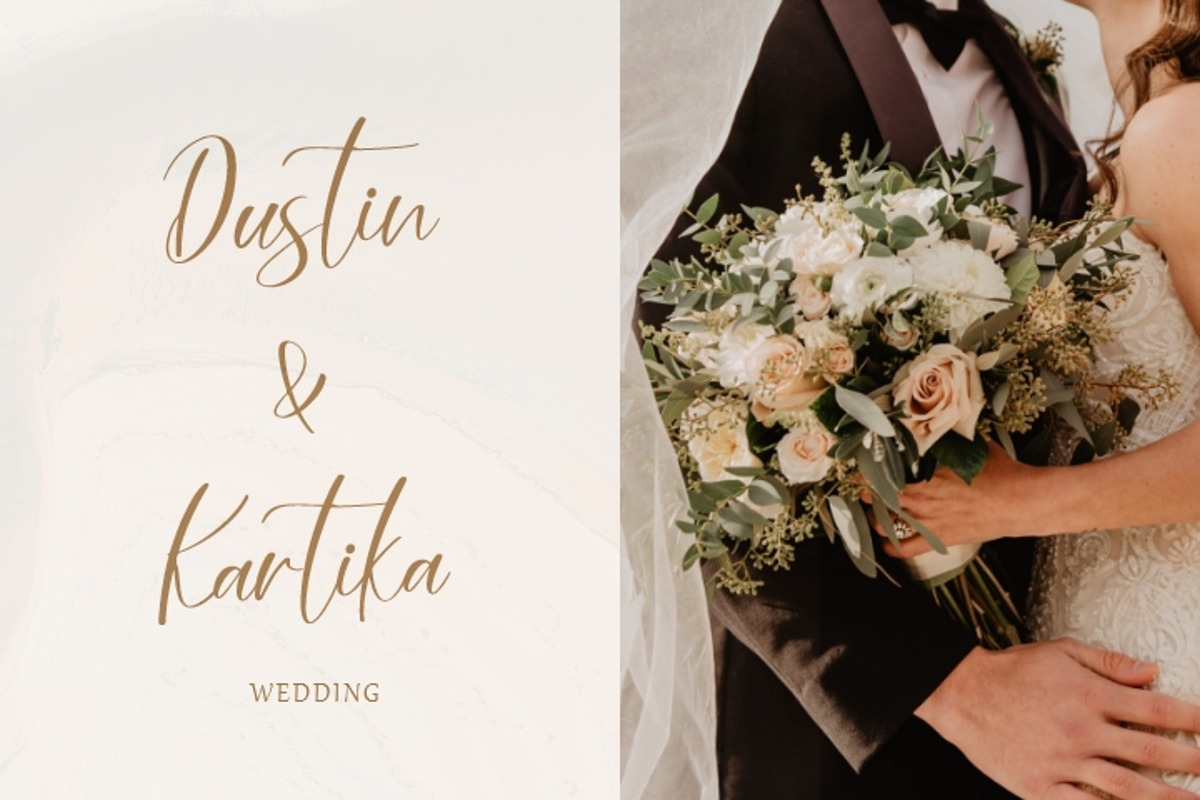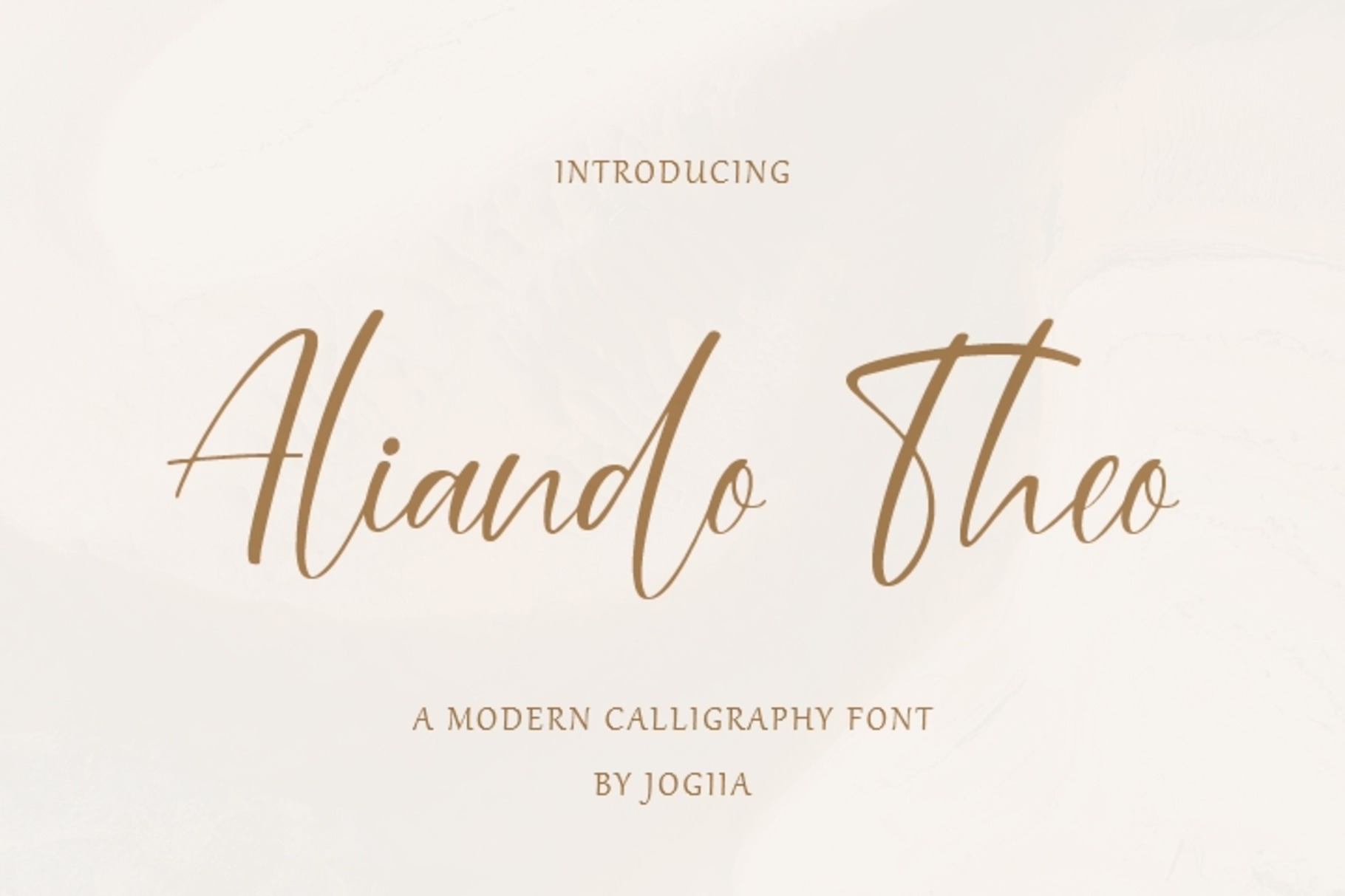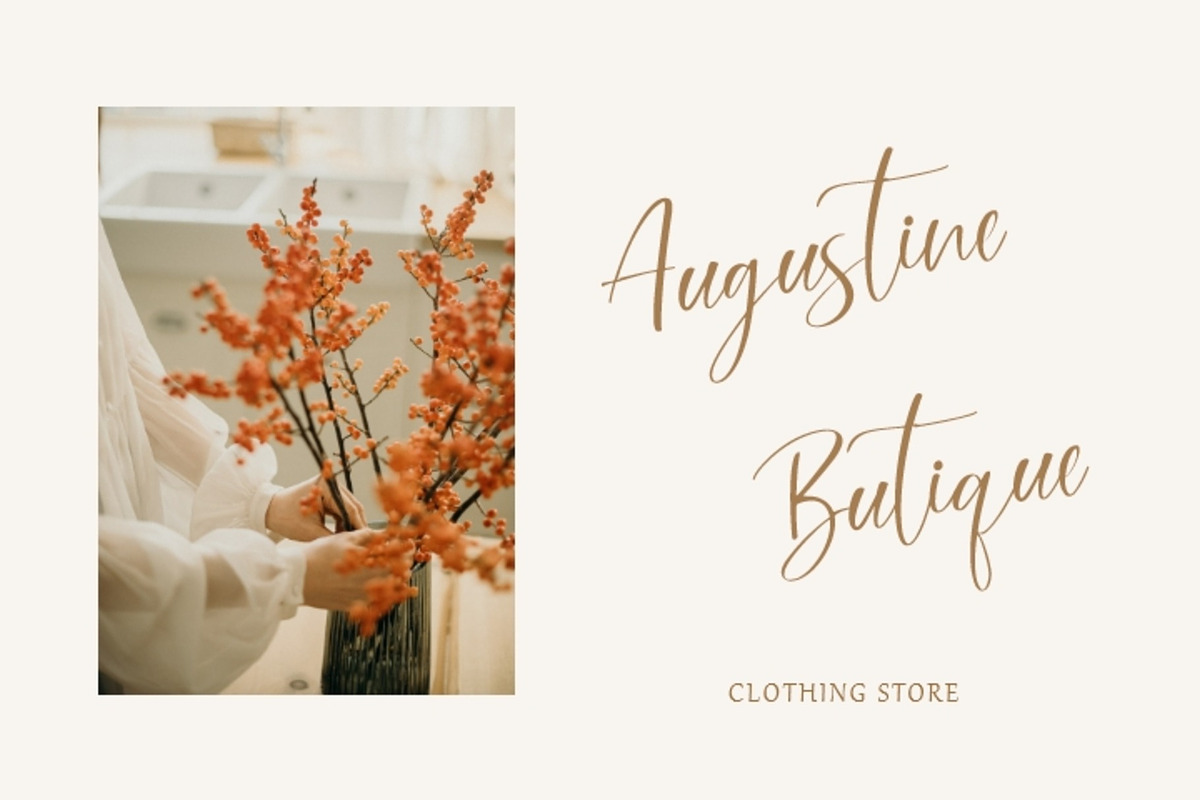
Aliando Theo: Modern Font Design
Introducing Aliando Theo, a stylish and versatile font that brings a touch of sophistication to any design project. This font features clean lines, elegant curves, and a modern aesthetic.
Elegant and Modern Design: Aliando Theo offers a unique blend of classic and contemporary elements, making it perfect for a wide variety of design projects.
Wide Range of Applications: Ideal for branding, logos, web design, print design, invitations, business cards, and more.
Variety of Styles: Comes with a range of styles including regular, bold, and italic, allowing for greater flexibility in your designs.
High Quality: Meticulously crafted to ensure high readability and beautiful aesthetics.